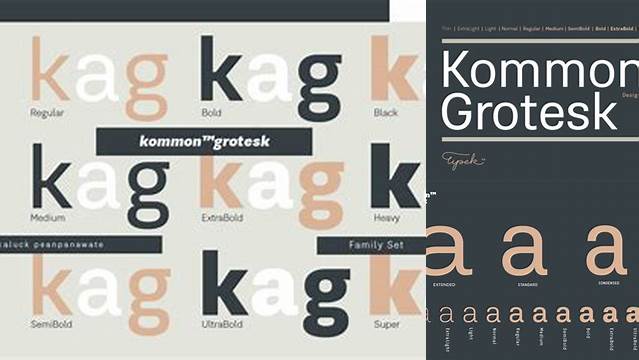
Kommon Grotesk: Free Font Download Guide
Hey guys! Ever stumbled upon a font that just clicks? That's how I felt when I first saw Kommon Grotesk. It’s clean, modern, and super versatile. Perfect for everything from website headers to branding projects. And the best part? You can often find it for free download! In this guide, we're diving deep into the world of Kommon Grotesk, exploring its uses, where to snag it for free (legally, of course!), and how to make the most of it in your designs. Let’s get started!
What is Kommon Grotesk?
Kommon Grotesk is a typeface that falls into the grotesque or sans-serif category. If you're not a font fanatic, that just means it's a font without those little decorative strokes (serifs) at the ends of letters. Think Helvetica or Arial, but with its own unique personality. What sets Kommon Grotesk apart is its modern and minimalist aesthetic. It’s incredibly readable, making it a solid choice for body text, but also has enough character to shine in headlines and logos. This free download option has made it increasingly popular among designers looking for a versatile and stylish font without breaking the bank. The clean lines and balanced proportions make Kommon Grotesk a go-to for a wide range of projects, from web design to print materials. So, if you're looking for a font that's both functional and fashionable, Kommon Grotesk might just be your new best friend!
Kommon Grotesk Font Family Overview
When you're considering a font like Kommon Grotesk, it's helpful to know what the family looks like. A font family typically includes various weights and styles – think light, regular, bold, italic, and more. This gives you a lot of flexibility in your design work. With Kommon Grotesk, you'll often find a range of weights, allowing you to create visual hierarchy and emphasis within your text. For example, you might use the bold weight for headings and the regular weight for body text. Some versions even include italic styles, which can add a touch of elegance or contrast. Understanding the Kommon Grotesk font family is crucial because it allows you to fully utilize its potential. A free download might include a limited set of weights, but even with a few options, you can achieve a professional and polished look. Knowing the available styles helps you plan your design and ensure consistency across different applications.
Key Features and Characteristics of Kommon Grotesk
Okay, let's talk specifics! What makes Kommon Grotesk stand out from the crowd? First off, its clean and geometric design is a major plus. The letters are well-formed and easy on the eyes, which is essential for readability. This makes Kommon Grotesk a fantastic choice for both digital and print projects. Another key characteristic is its versatility. You can use it for everything from website headers and body text to logos and branding materials. It’s a real workhorse! The even strokes and balanced letterforms give it a modern and professional feel, which is perfect for businesses and brands that want to convey a sense of trustworthiness and reliability. Plus, the availability of a free download option makes it accessible to a wide range of users, from students to professional designers. Kommon Grotesk truly shines because it manages to be both simple and stylish, making it a valuable addition to any designer's toolkit.